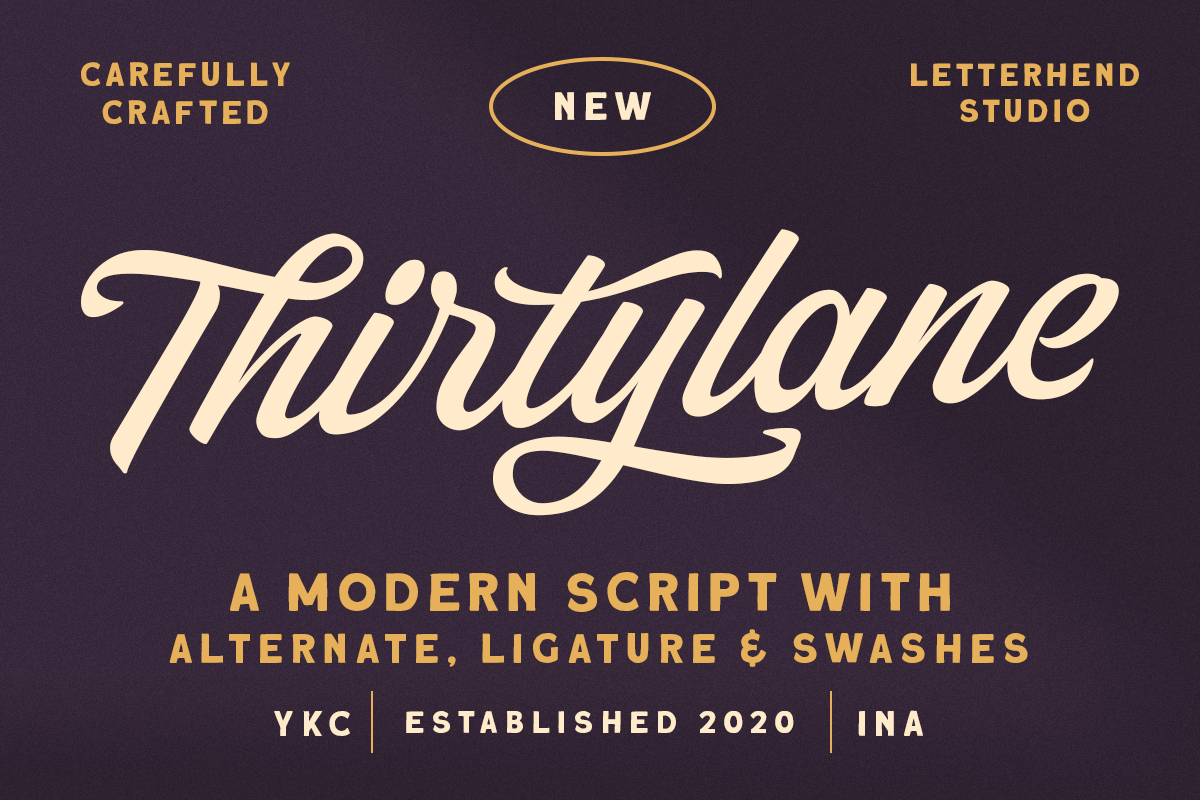
Thirtylane Script Font
Thirtylane Script Font is perfect for elegant wedding invitation designs, sophisticated calligraphy service branding, luxury boutique signage, graceful personal stationery projects, refined social event graphics, upscale beauty salon materials, delicate jewelry packaging, romantic lifestyle blog headers, artisanal handmade product labels, and premium greeting card collections. This flowing typeface brings handwritten elegance to luxury paper goods companies, high-end event planning services, elegant calligraphy studios, premium gift designs, and sophisticated feminine brand communications.
Thirtylane Script Font is exciting because it captures the essence of refined penmanship and contemporary elegance through its beautifully flowing script letterforms that dance across the page with graceful sophistication. The font features elegant characters with smooth connecting strokes and refined flourishes that evoke the artistry of master calligraphers, the intimacy of handwritten letters, and the personal touch of bespoke craftsmanship. Its distinctive construction demonstrates script mastery with carefully crafted flow that creates an immediate sense of elegance and handwritten authenticity. The font's sophisticated presence and script authenticity make it perfect for brands seeking to communicate personal elegance, handcrafted quality, and contemporary calligraphic beauty in their visual communications.
Thirtylane Script Font family includes various elegant script styles: Light Script, Regular Script, Bold Script, Flowing Script, Elegant Script, Classic Script, Ornate Script, Simple Script, Condensed Script, Extended Script, Flourished Script, and Refined variants. Each family member maintains the core script DNA while offering different levels of ornamentation for diverse elegant design applications. The comprehensive font collection ensures consistent calligraphic branding across luxury stationery campaigns, elegant events, and sophisticated communication materials.
Whether you're creating elegant brand identities, designing sophisticated event materials, developing graceful website headers, or crafting luxury promotional campaigns, Thirtylane Script Font delivers outstanding script appeal and calligraphic authenticity. The font's distinctive flowing personality excels in elegant logos, luxury packaging design, sophisticated applications, and personal projects where handwritten elegance and script sophistication are essential.